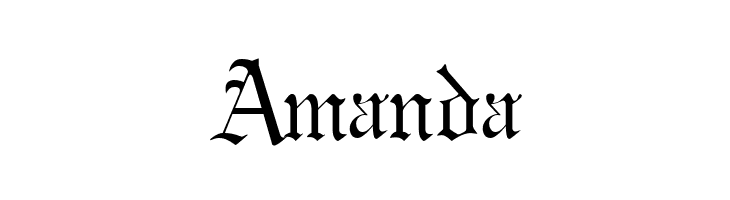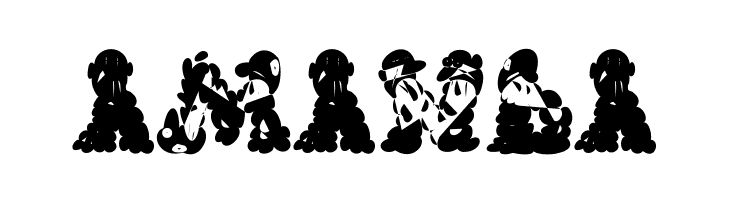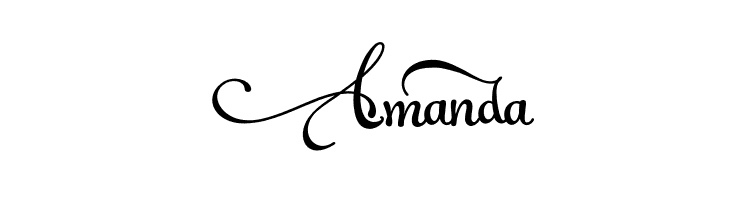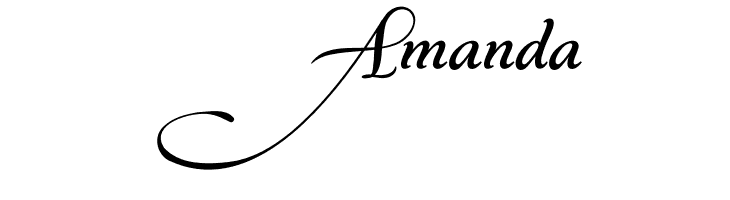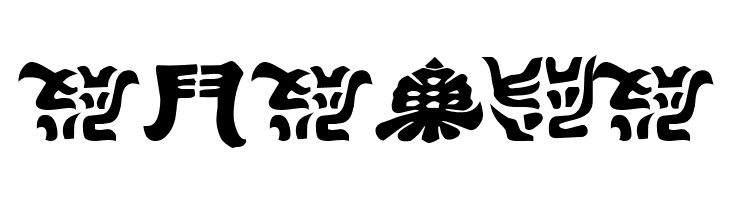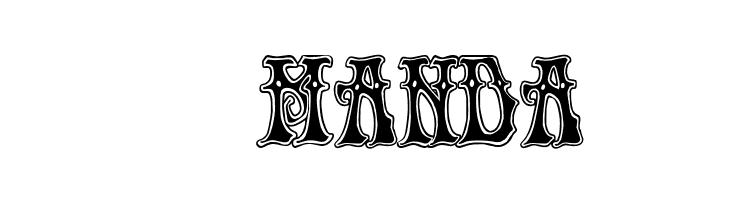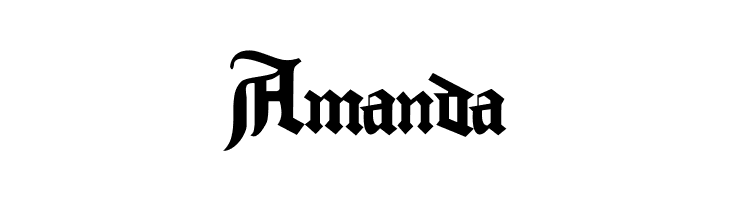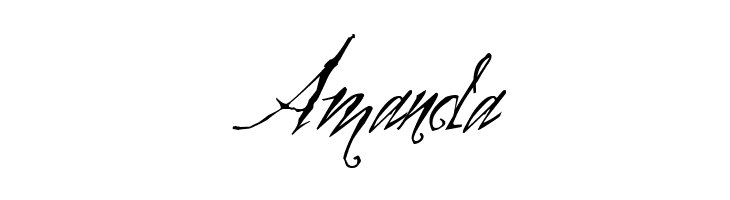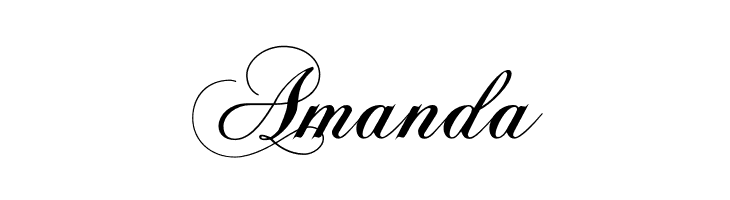
A decorative font with letters designed to resemble lizards, featuring elaborate and whimsical details.
A decorative font with elaborate swashes and flourishes, exuding elegance.
An ornate Gothic-style font with elaborate flourishes and sharp angles.
An elegant and decorative font with elaborate swashes and flourishes.
An ornate and decorative font with elaborate curves and flourishes.
An ornate script font with elaborate swashes and flourishes.
An elegant script font with flowing, interconnected letters and elaborate swashes.
A gothic, ornate font with high contrast and elaborate flourishes.
A bold, intricate Gothic script with elaborate flourishes and sharp angles.
Ornate, festive script with elaborate swashes and bold lowercase forms.
An ornate script font with elegant swirls and flourishes.
A bold, decorative font with intricate, swirling patterns and a vintage psychedelic vibe.
A classic blackletter font with ornate, decorative letterforms.
An intricate, decorative font with an ancient, hieroglyphic style.
An ornate Gothic-style font with intricate flourishes and sharp serifs.
A classic Blackletter font with intricate detailing and medieval elegance.
An elegant script font with intricate swashes and a classic calligraphic style.
A decorative and ornate font with intricate serifs and artistic details.